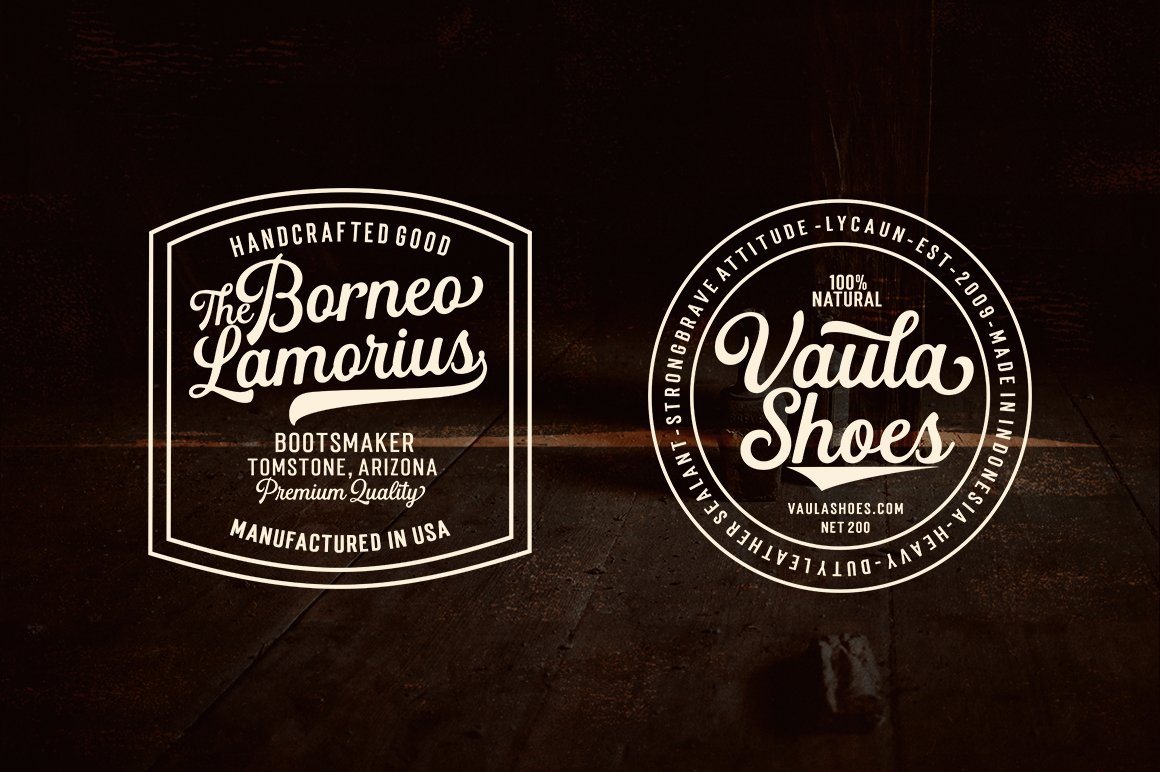
About Black Seashore Font
Black Seashore is a script typeface with noble and vintage looks. Created in response to current graphic design trends. Inspired by classic labels, vintage packaging, and old sign paintings. This Black Seashore will add a touch of worldly knowledge to your artwork, Classic nuance is perfect for those of you who need fonts for especially the types of logos, clothing, signage, branding, packaging, advertising, and more. I have designed a number of examples, so you can see how it can be used. Black Seashore also has many alternatives for ascender, descenders, swash, and ligature. It also has several options for tail and underline. To provide a number of good possibilities to play and make some unique designs. Black Seashore is equipped with: • Uppercase, lowercase letters, numbers, punctuation & symbols • Multilingual support • Alternative style • Stylistic Set 01 – Stylistic Set 014 • Swash • Ligature If there are problems, questions, or anything about my font, please send an email to  Thank you for viewing our new product, enjoy!